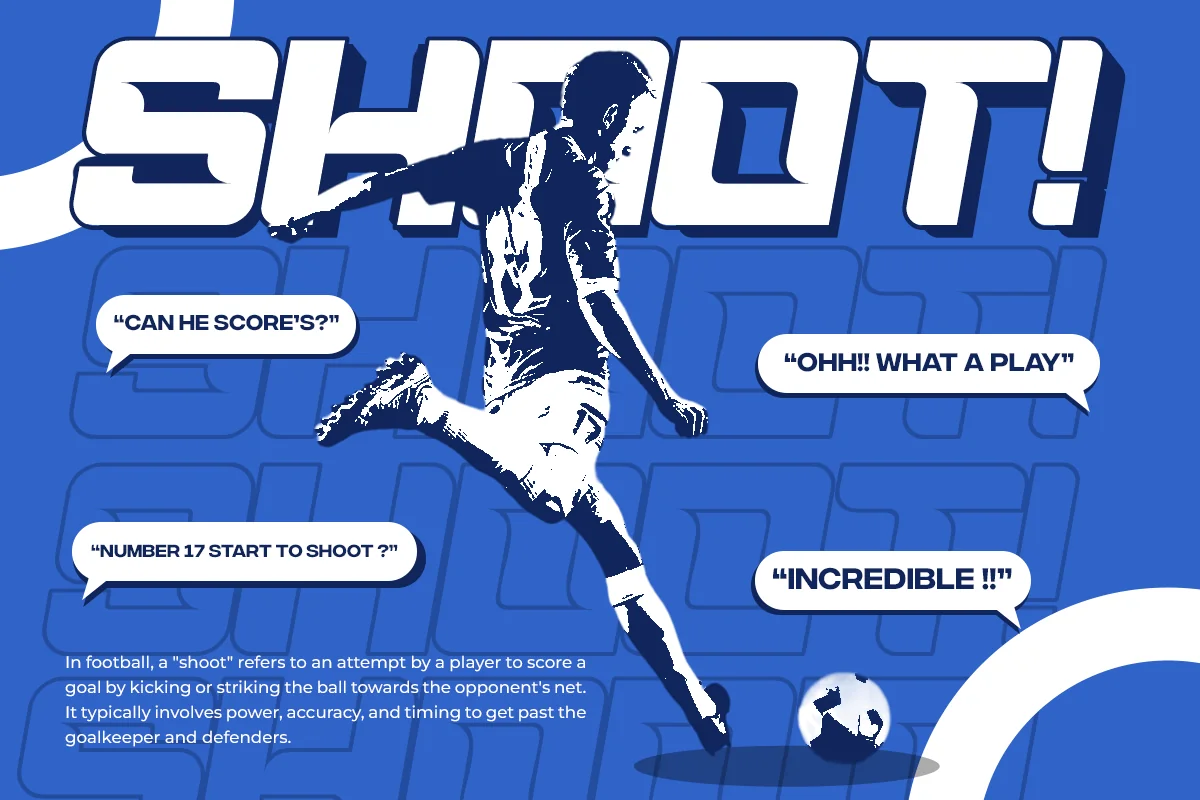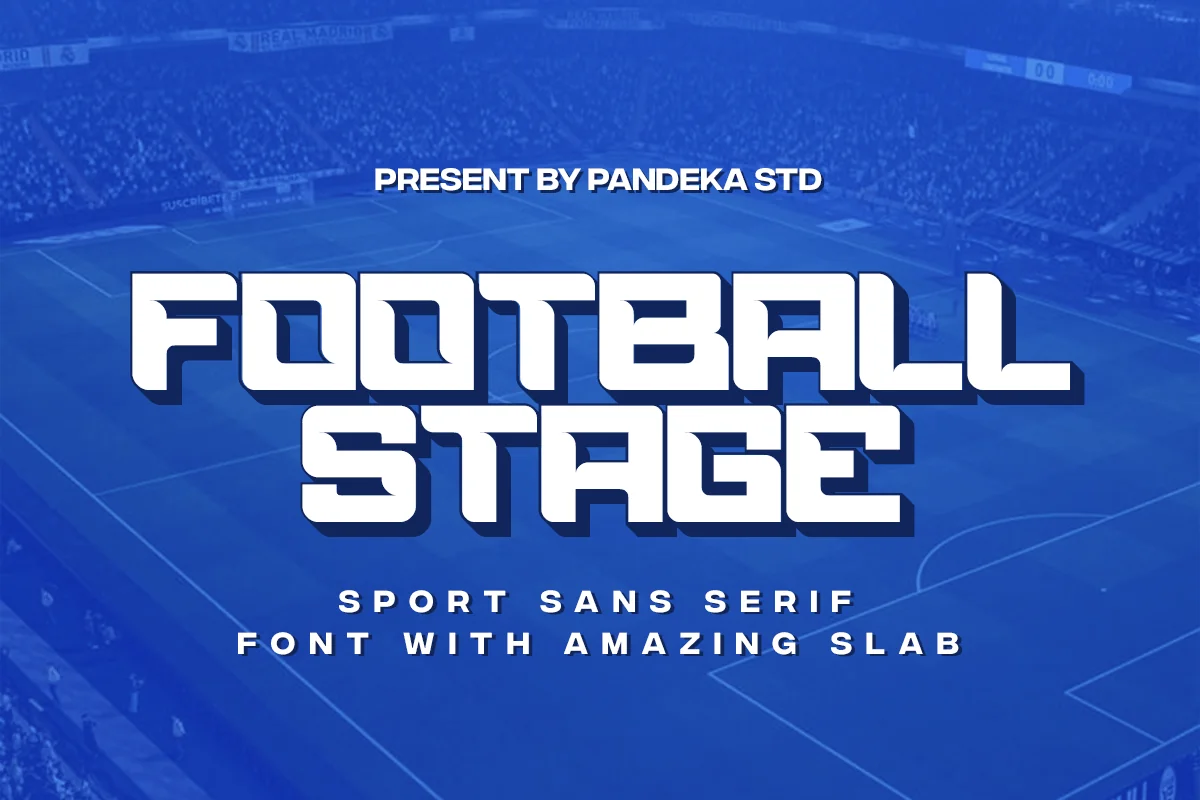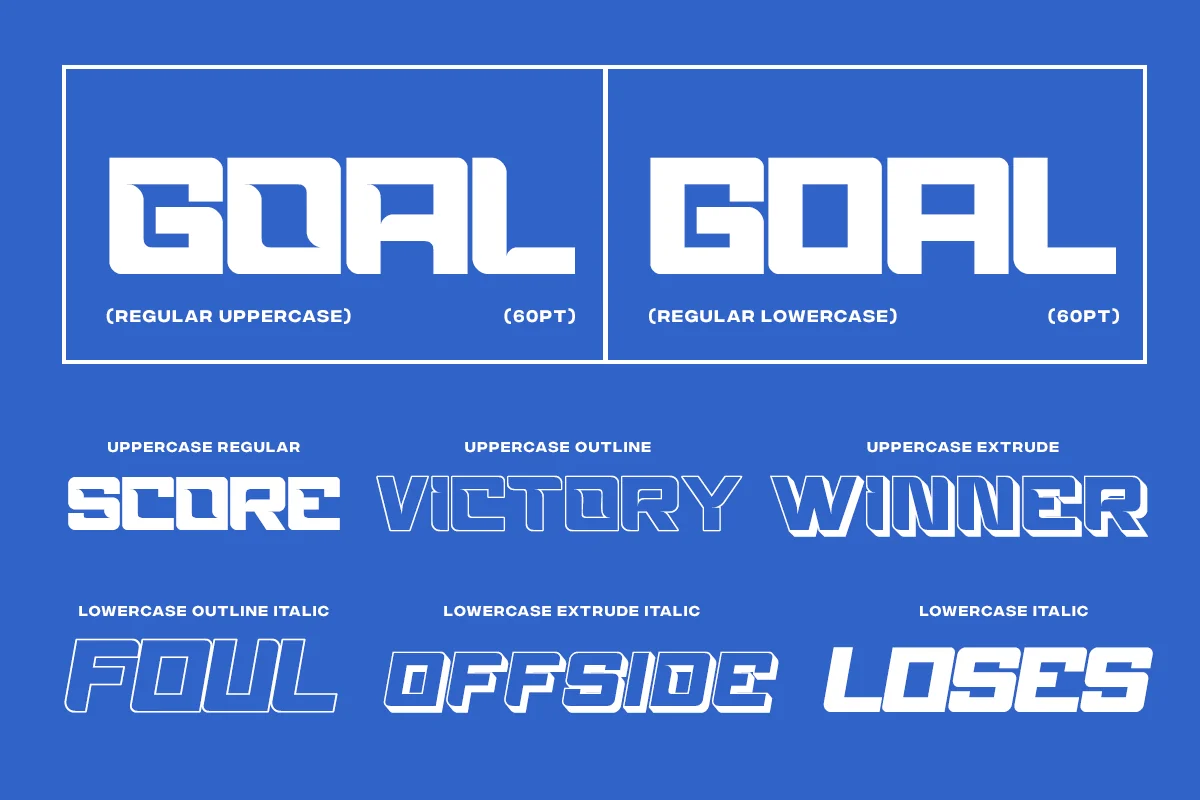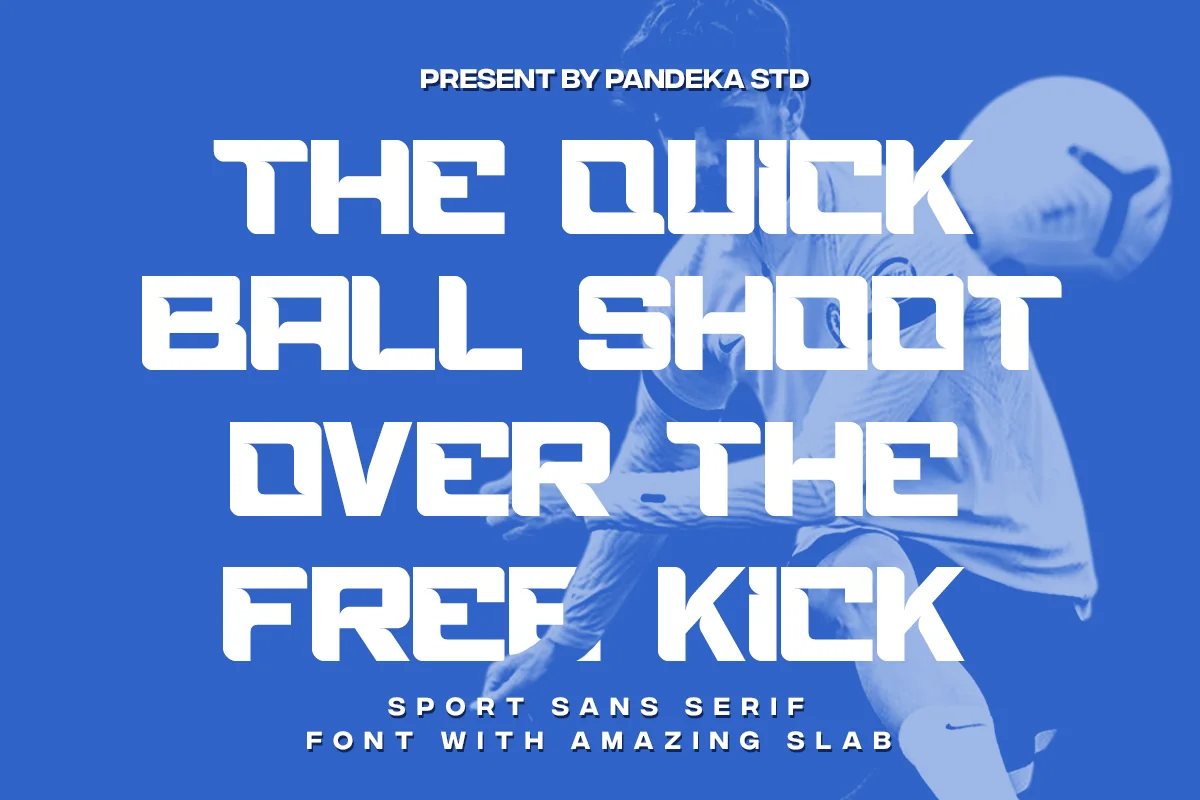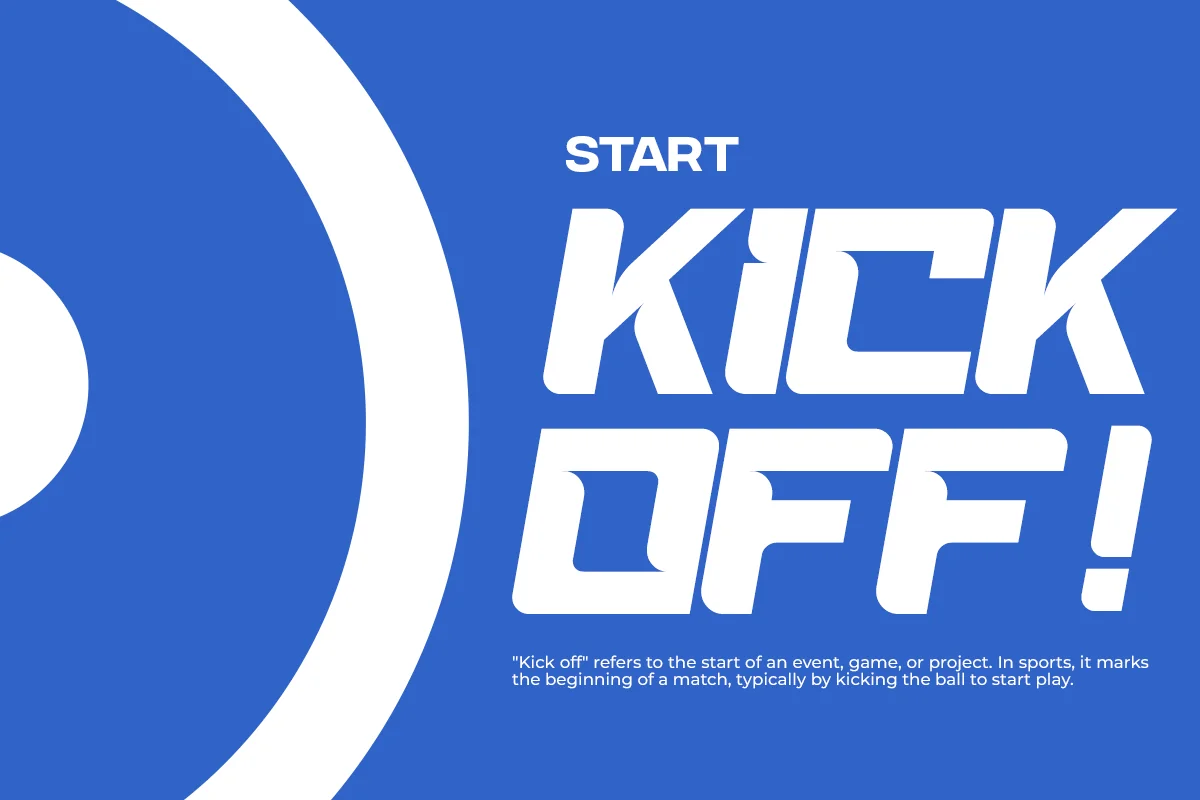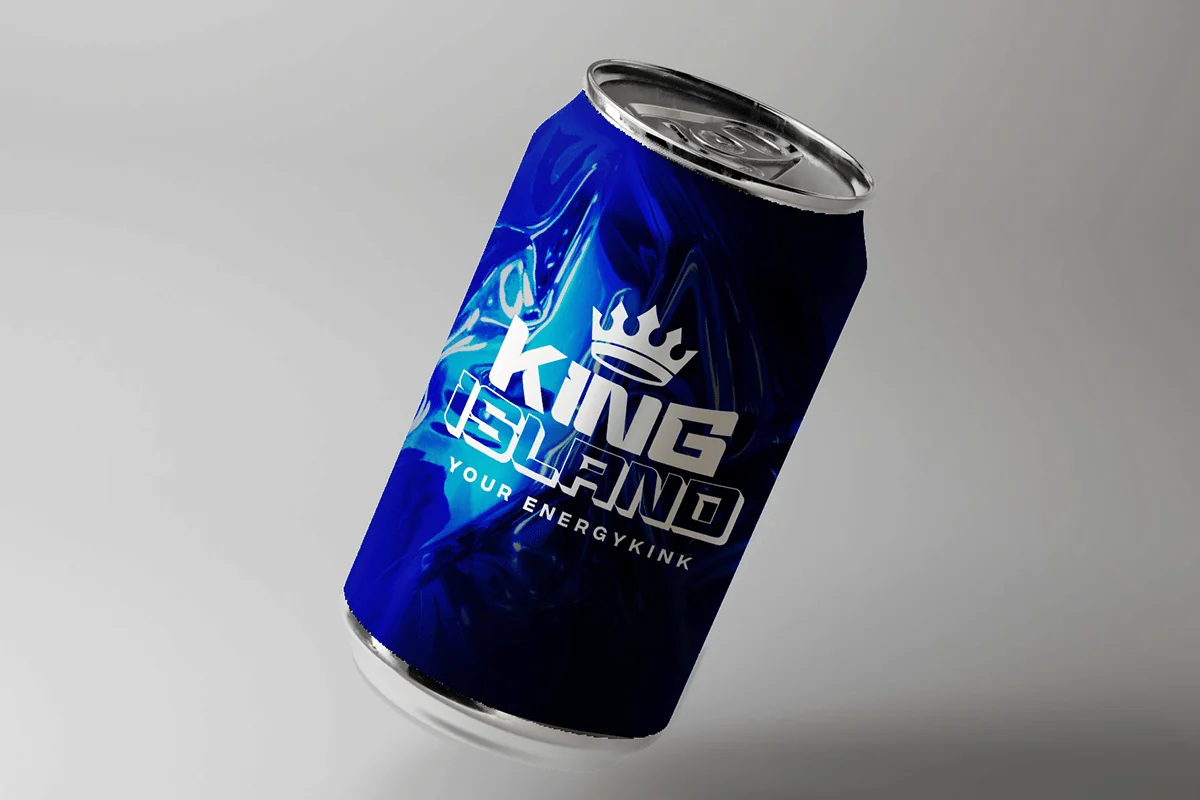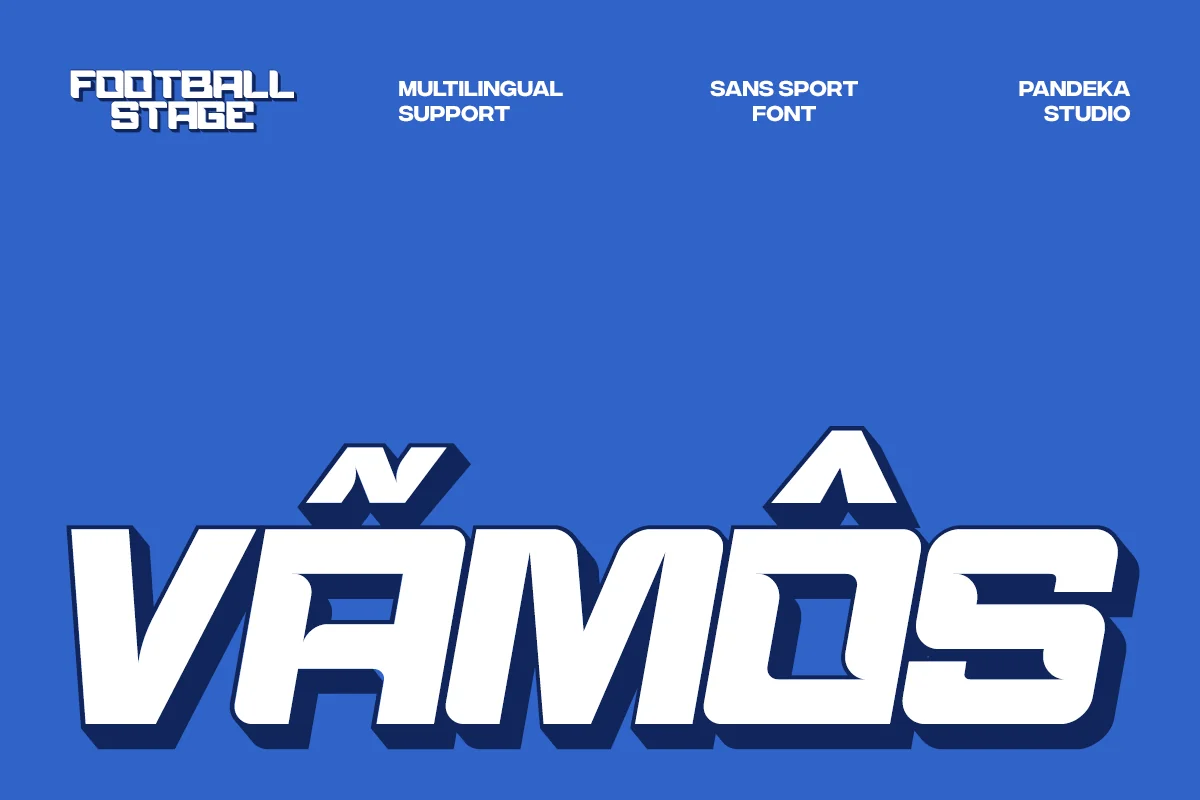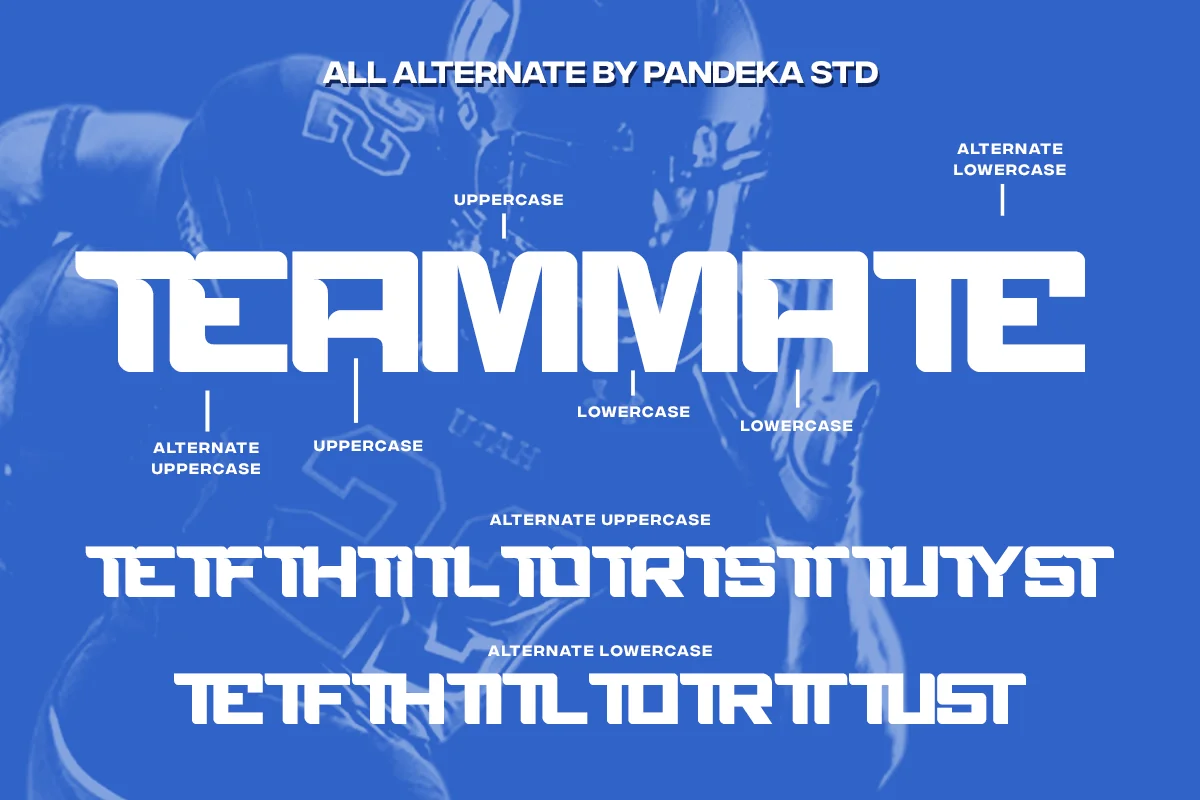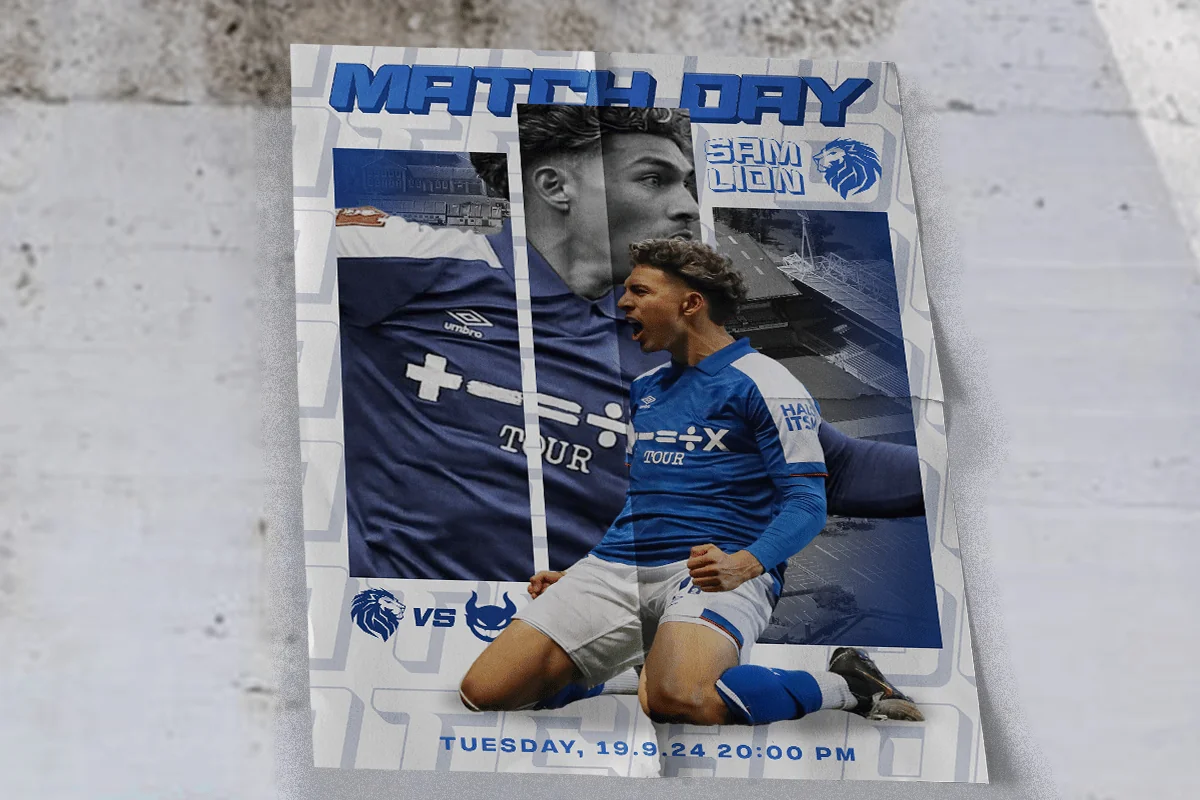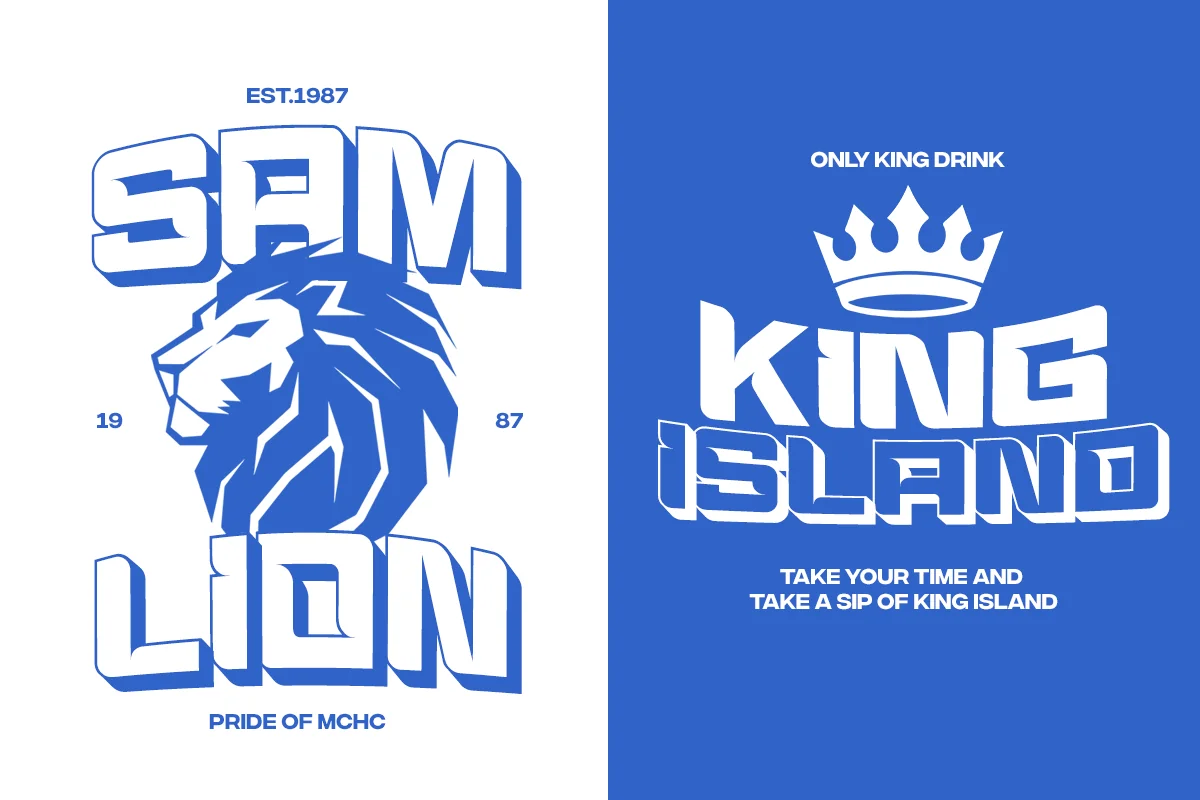
Football Stage – Football Font
Introducing Football Stage – The Ultimate Sports Font
Football Stage is a bold and dynamic font perfect for sports branding, team jerseys, posters, and merchandise. With 6 styles – Regular, Outline, Extrude, Italic, Italic Outline, and Italic Extrude – it adds energy and impact to any design. Complete with uppercase, lowercase, numbers, and special characters, Football Stage ensures your projects stand out with athletic power and style.
*6 Style: Regular, Extrude, Outline, Italuc, Extrude Italic, Outline Italic
*Unique letterforms
*PUA Encoded Characters
Language Support: Danish, English, Estonian, Filipino, Finnish, French, Friulian, Galician, German, Gusii, Indonesian, Irish, Italian, Luxembourgish, Norwegian Bokmål, Norwegian Nynorsk, Nyankole, Oromo, Portuguese, Romansh, Rombo, Spanish, Swedish, Swiss-German, Uzbek (Latin)